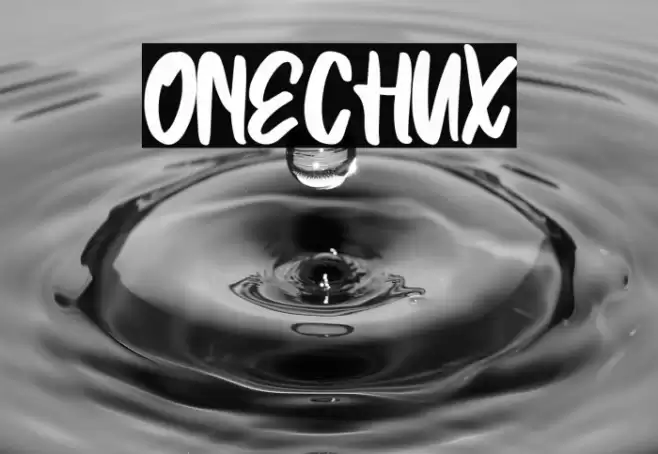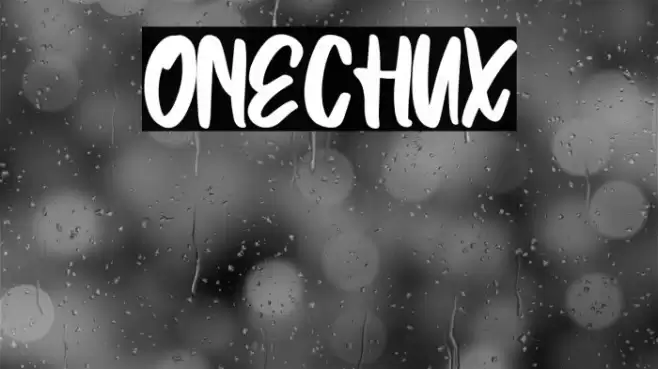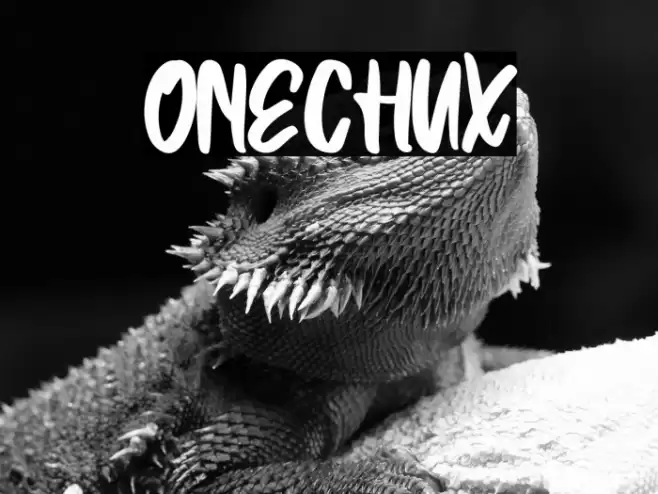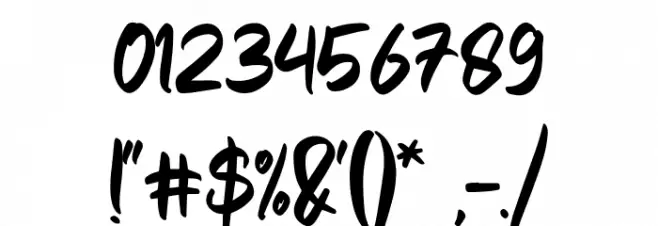
ONECHUX Font
ONECHUX Description
This font features a bold and expressive handwritten style, characterized by its smooth, flowing curves and dynamic strokes. The uppercase letters are slightly larger and more prominent, giving a sense of energy and movement. The lowercase letters maintain a consistent style, with a playful and informal touch. Numbers and special characters are designed to match the overall aesthetic, ensuring a cohesive look across all text elements. The font's unique personality makes it stand out, perfect for projects that require a personal and creative touch.
A bold, expressive handwritten font with smooth, flowing curves from Regular fonts.
- Proposed Projects: Ideal for branding, social media graphics, posters, and invitations where a personal and creative touch is desired.